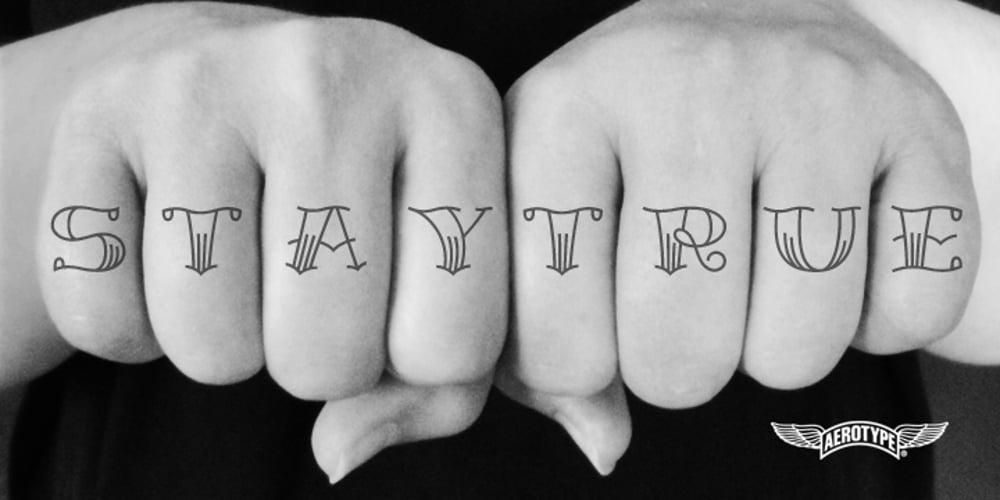
Stay True Font Family was designed by Stephen Miggas and published by Aerotype. Stay True contains 4 styles and family package options. Express yourself in ink with tattoo-inspired Stay True™. Available as a set or individually, Stay True and companion font Stay True Open deliver your message with an edgy attitude. Pro versions of both fonts extend the character set to support Eastern European and Baltic languages.